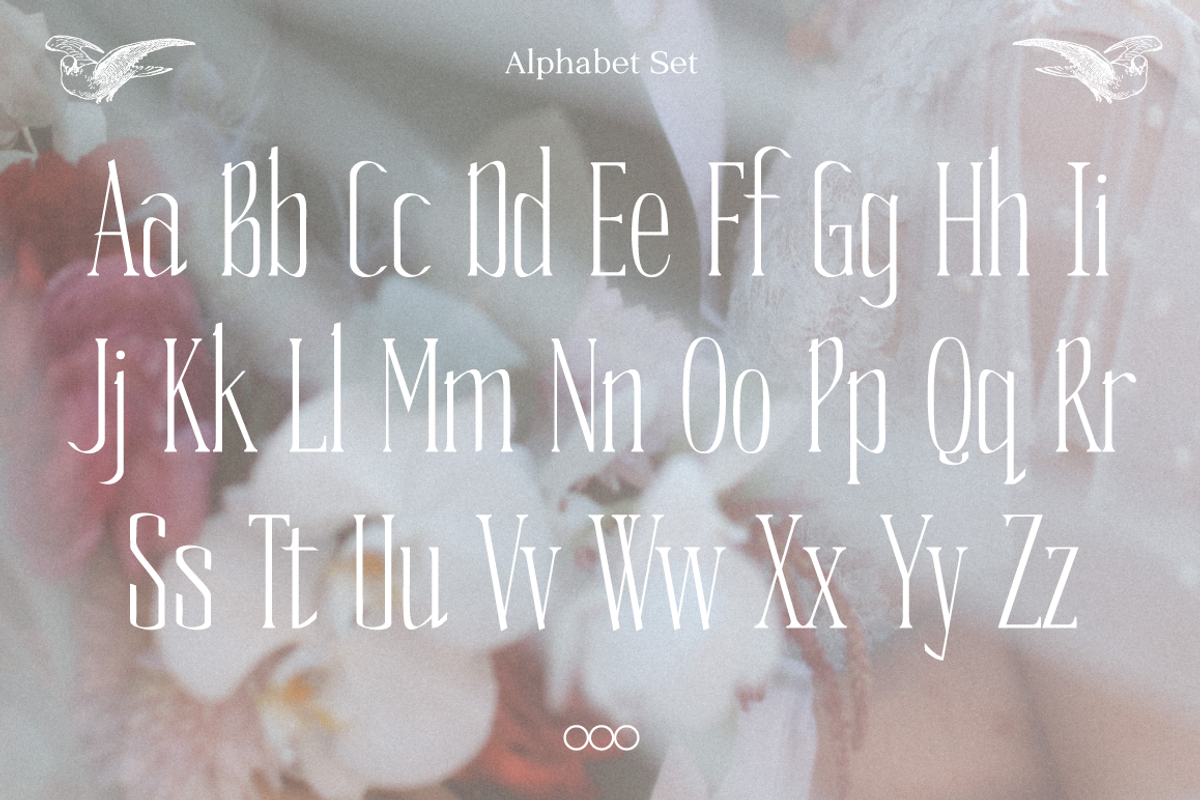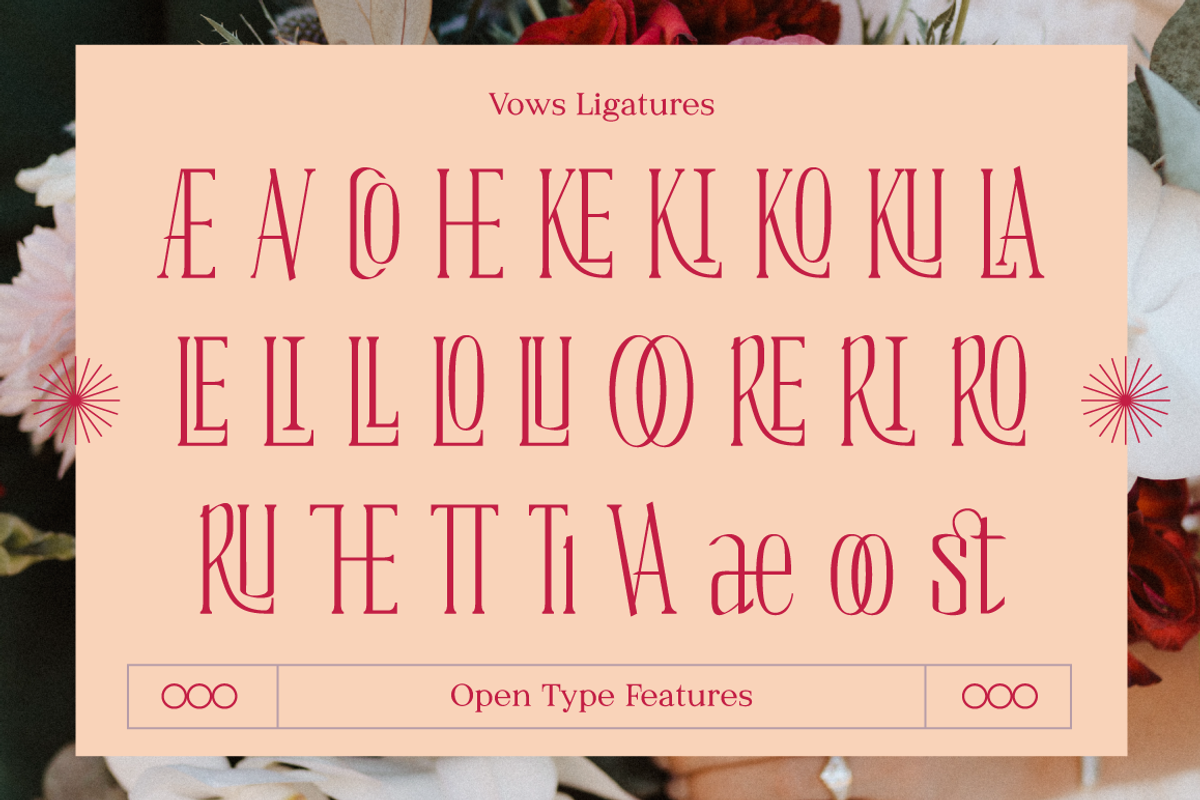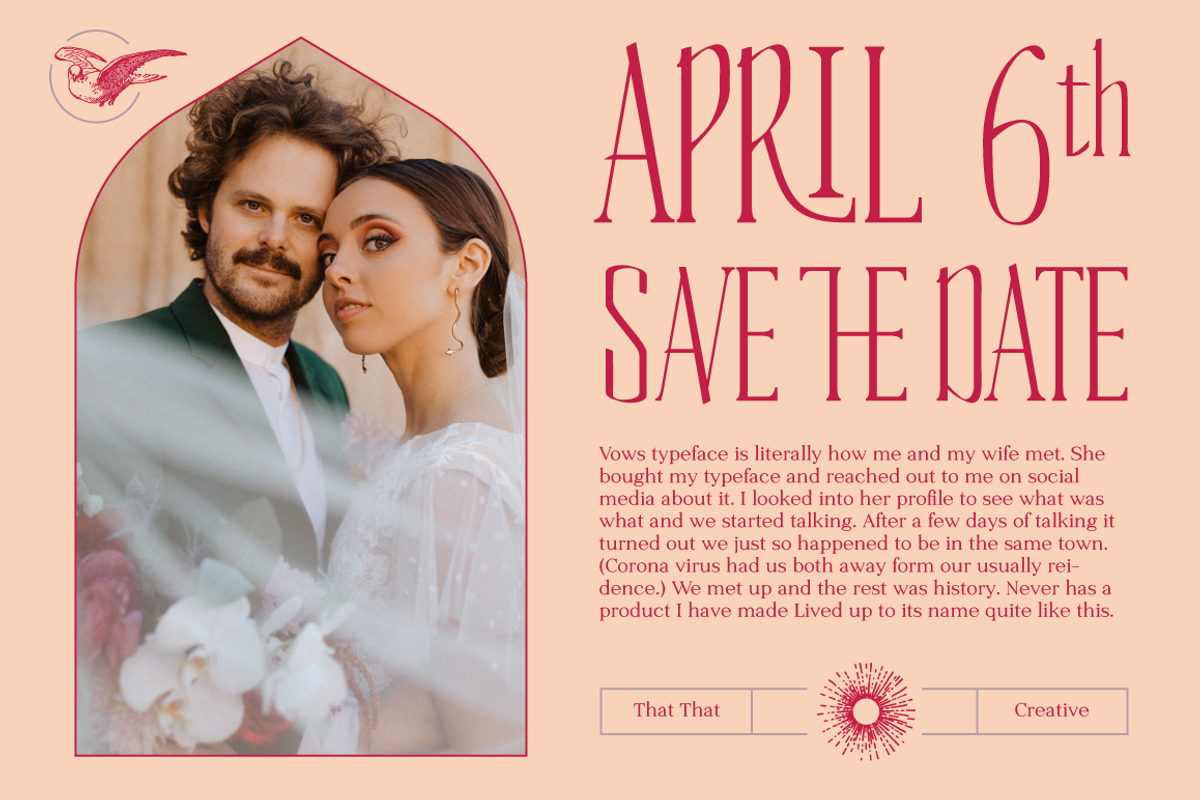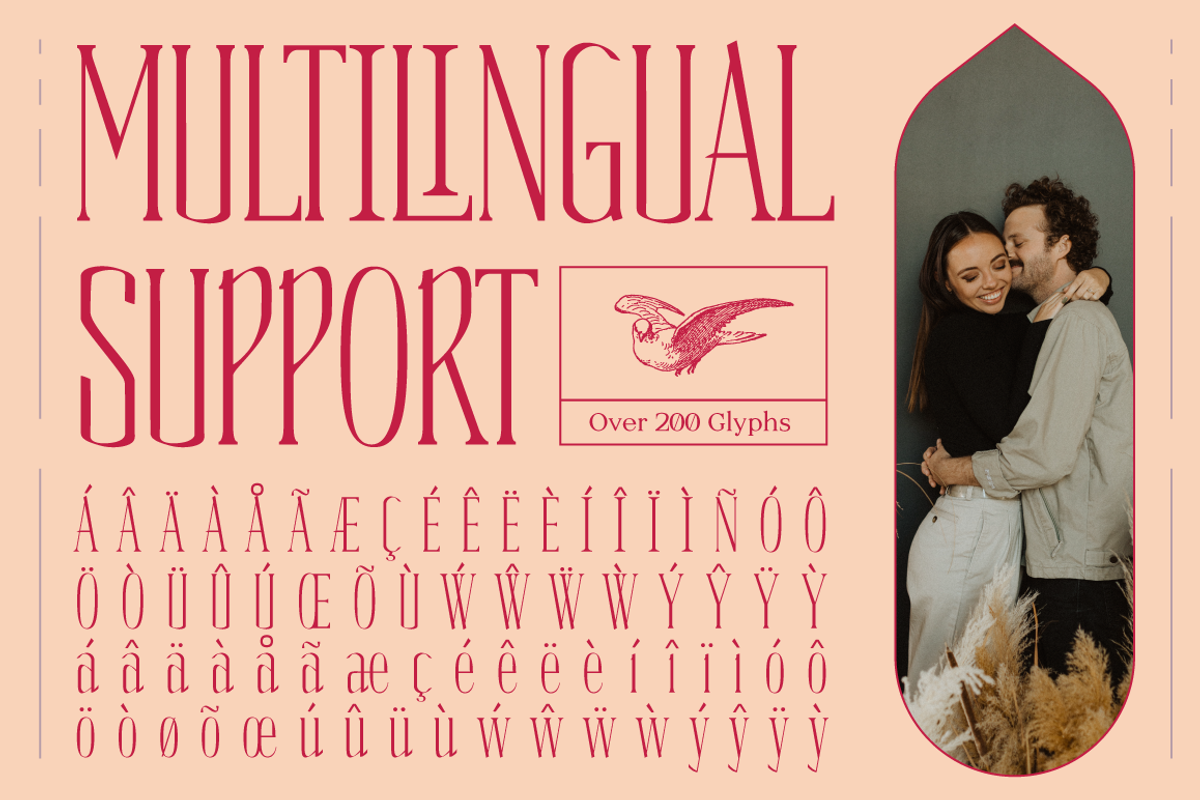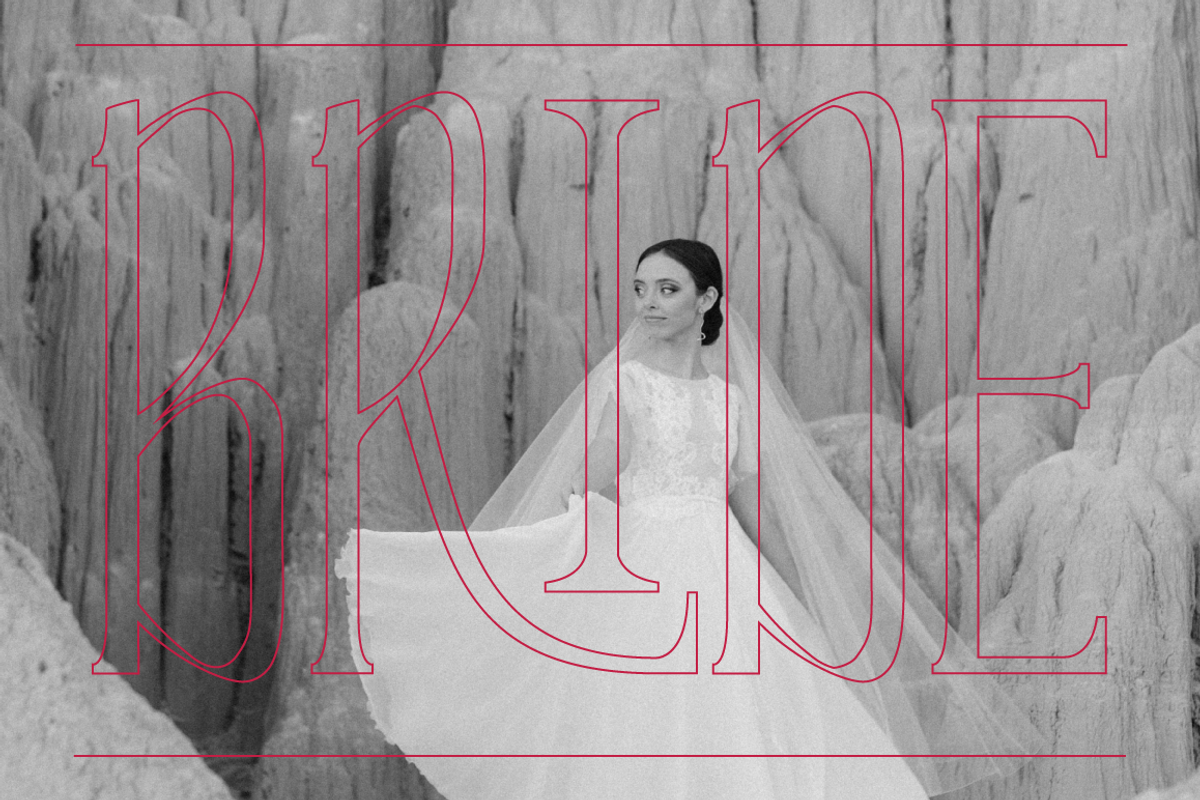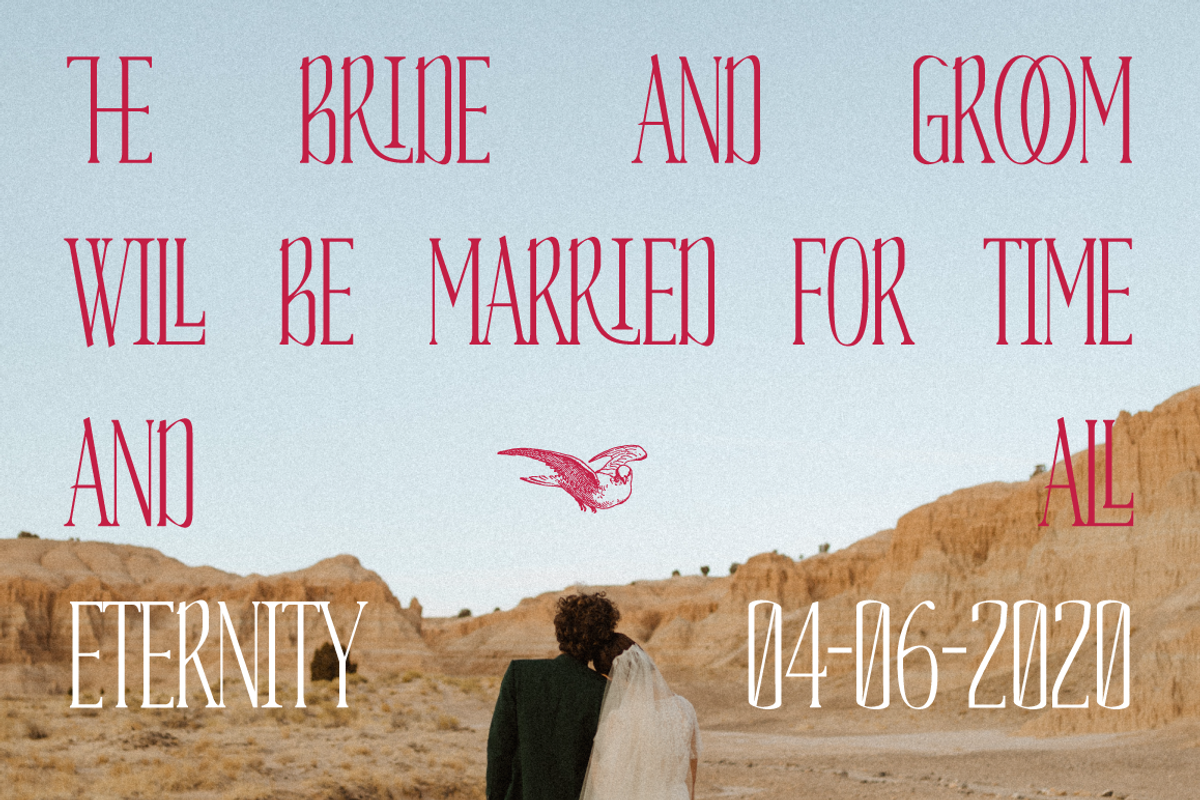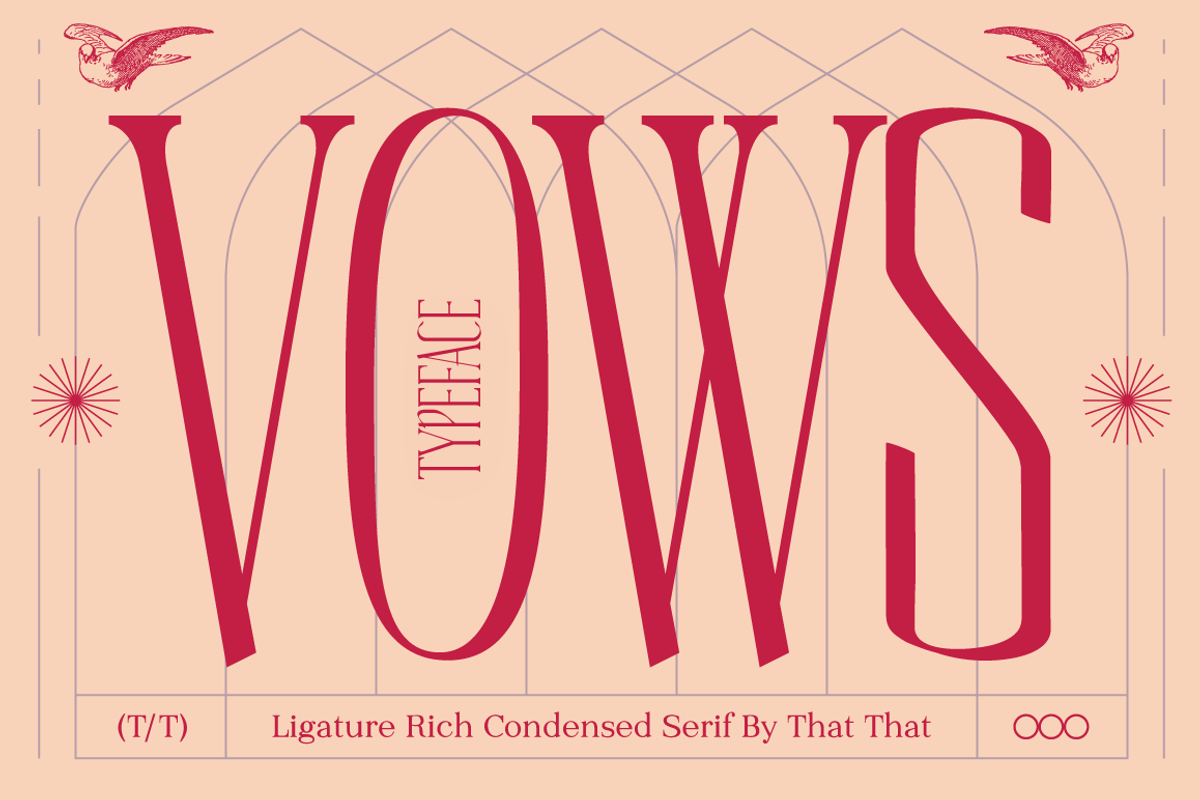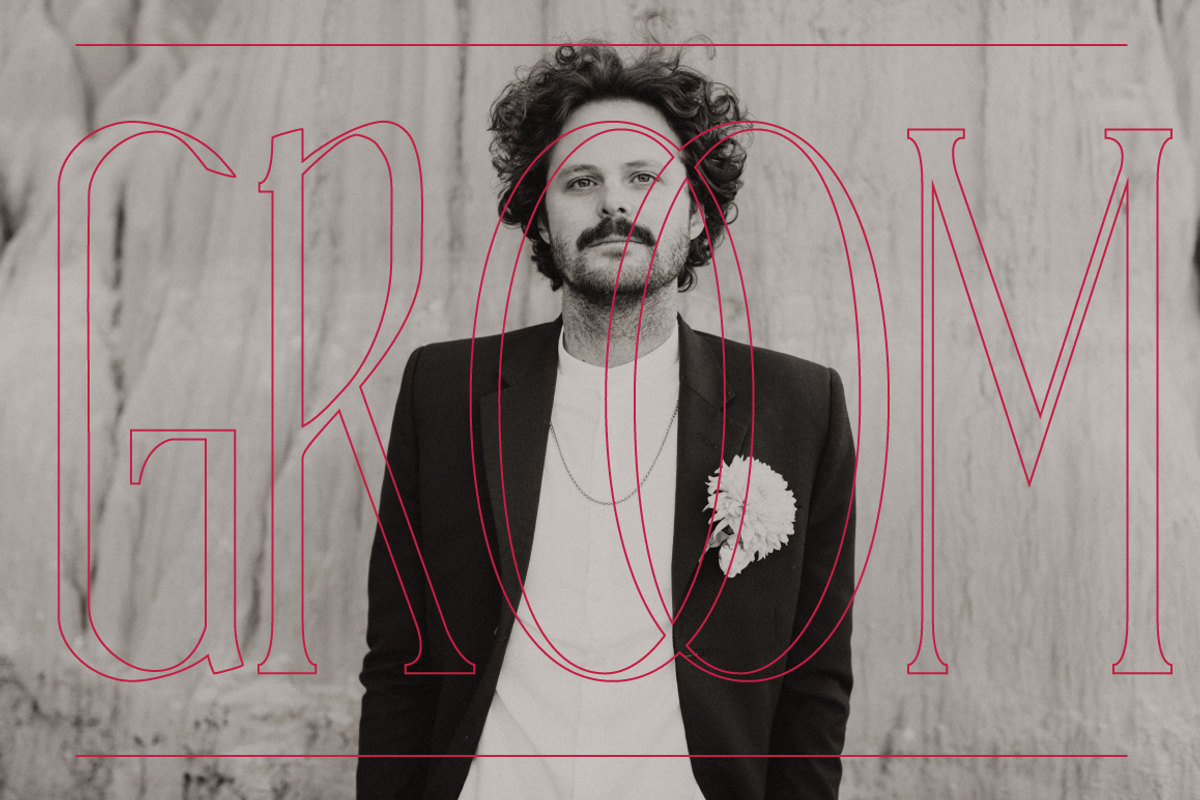
Vows Elegant Condensed Serif
This Elegant condensed serif font is perfect for elevating the feel of any design. It is tall and slender making its presence known without being overbearing. It is perfect for logos magazines fashion wedding invites and anything else you can imagine. This modern unique type is sure to turn heads.
- Letters, Numbers, Punctuation, Arrows, Symbols
- Ligatures, alternates
- Over 200 characters